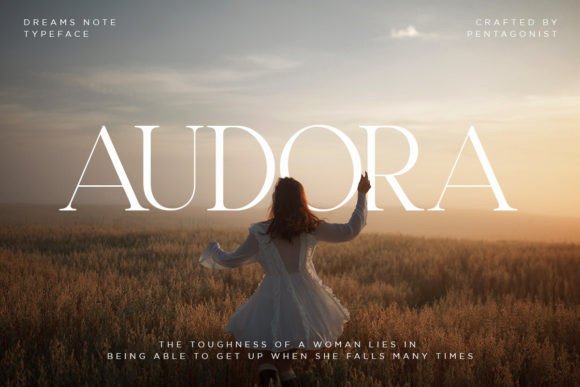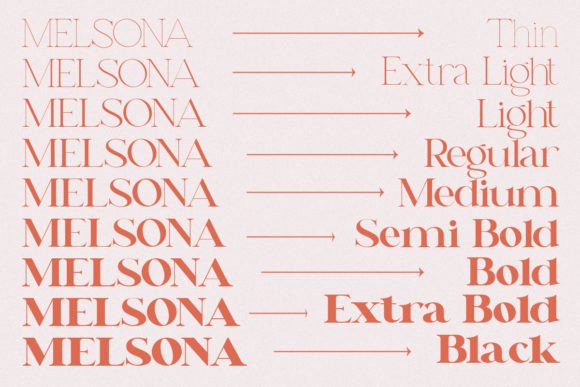
Dreams Note Font
Dreams Note Is A Modern Family Font Serif Including 8 Font Style. It has a modern style with a touch of creative ideas that is very suitable to be applied anywhere that requires creative ideas.